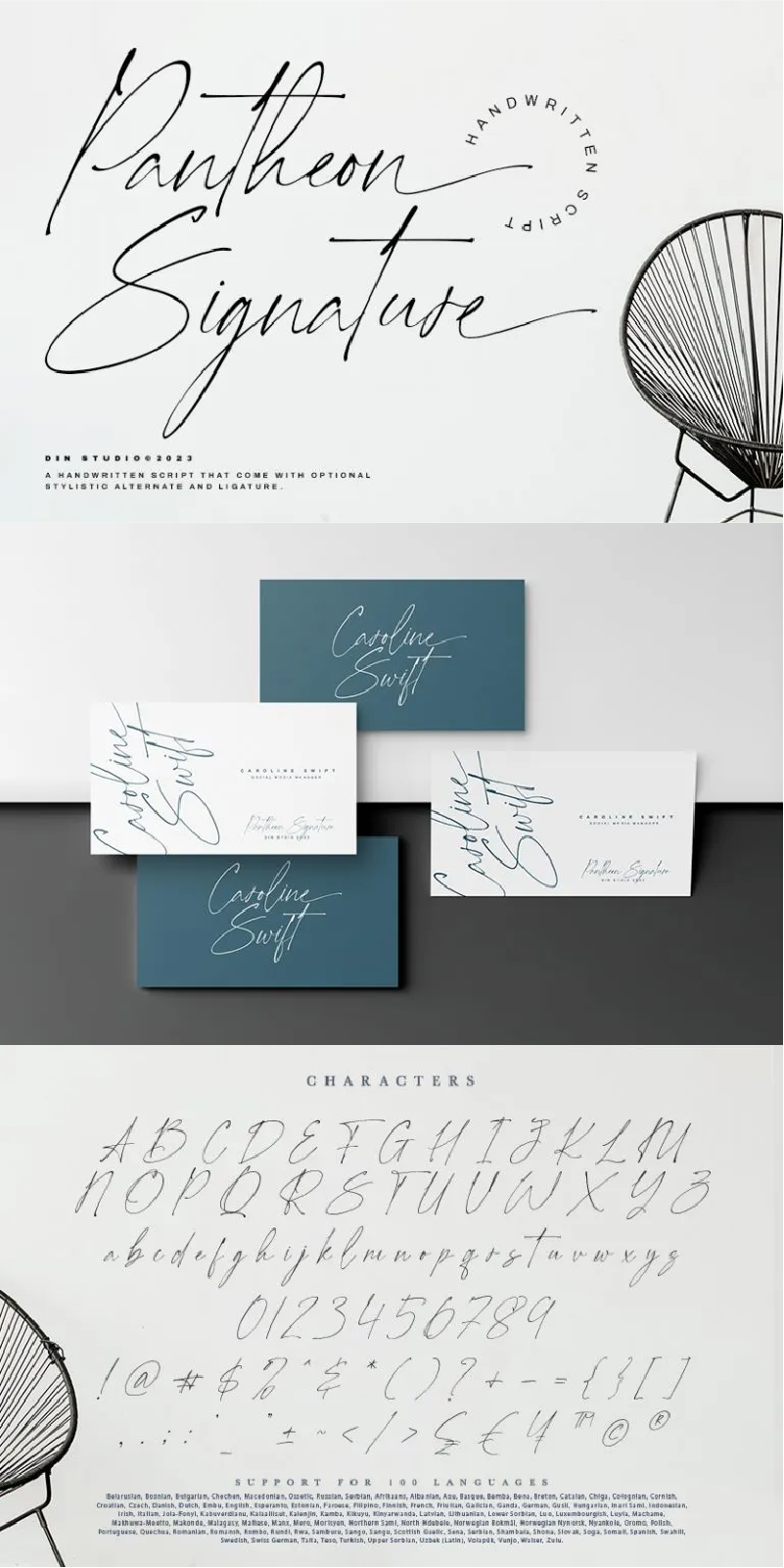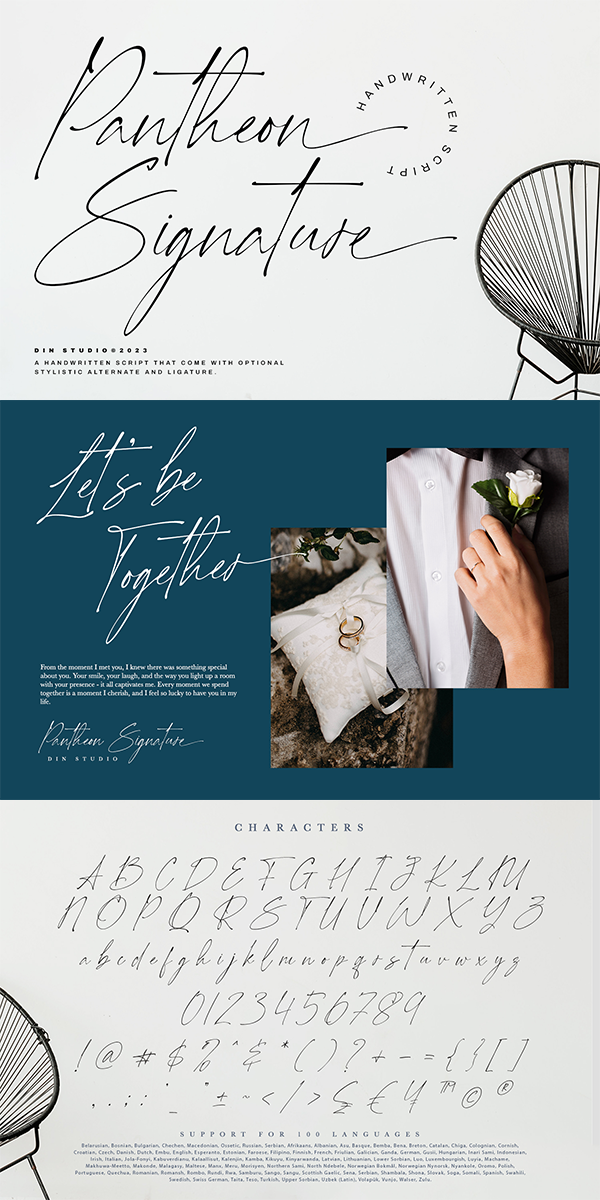
Pantheon Signature Font
About Pantheon Signature
Pantheon Signature is a handwriting style script font made in elegant, personal, detailed handwriting designs. The combination of the amazing attractiveness and beauty emphasizes the modern designs of this font.
Pantheon Signature’s letters are interconnected and the letters’ details show sharp, curvy scratches on the edges. It is most applicable for designs in elegant, professional, romantic nuances. Furthermore, you can use it for either big text sizes or the text contents and also enjoy the available features here.
Pantheon Signature fits best for various design projects, such as brandings, headings, magazine covers, quotes, printed products, invitations, greeting cards, name cards, merchandise, social media, etc. Find out more ways to use this font by taking a look at the font preview.